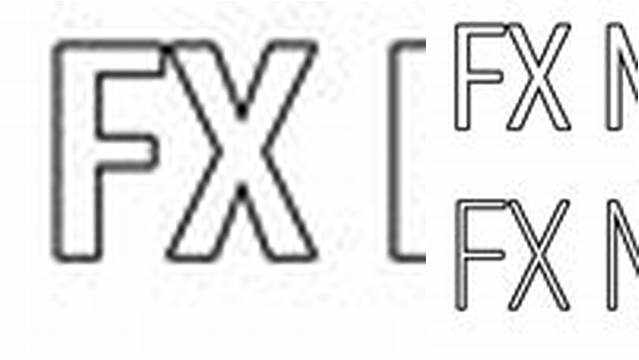
FX Neofara Font: Free Download & Usage Guide
Are you a designer or content creator constantly on the lookout for fresh, eye-catching fonts? Well, fonts play a crucial role in the overall aesthetic and readability of any project, whether it's a website, a poster, or even a social media graphic. Today, we're diving deep into the world of fonts, specifically focusing on the FX Neofara Semi Bold Outline font. This unique typeface can add a touch of modern elegance and distinctiveness to your work. If you've been searching for a font that stands out from the crowd, you're in the right place! This article will guide you through everything you need to know about the FX Neofara Semi Bold Outline font, including its features, potential uses, and, most importantly, where you can download it for free. So, buckle up, font enthusiasts, and let's get started!
What is FX Neofara Semi Bold Outline Font?
Let's get into the nitty-gritty of what makes the FX Neofara Semi Bold Outline font so special. First off, the "Semi Bold" weight gives it a strong presence without being overwhelmingly heavy, striking a perfect balance for headlines, subheadings, and even shorter paragraphs. The "Outline" style is where this font truly shines, offering a contemporary and slightly futuristic feel. This outline effect creates a visually interesting look, making your text pop and drawing the reader's eye. Imagine using this font for a tech-related website, a gaming poster, or even an invitation to a modern art exhibition – the possibilities are endless! The design is clean and geometric, lending a sense of sophistication and clarity to any project. It's not just about looking good; it's about communicating your message effectively, and the FX Neofara Semi Bold Outline font helps you do just that. The versatility of this font makes it a valuable asset in any designer's toolkit. Whether you're working on a sleek, minimalist design or something more bold and edgy, this font can adapt to your needs. It's the kind of font that can elevate your work from looking good to looking truly professional. And the best part? You can get your hands on it without spending a dime! In the following sections, we'll explore more about its uses and where to find that free download. We'll also touch upon some important considerations when using free fonts, ensuring you're using them responsibly and legally.
Key Features and Design Elements
The FX Neofara Semi Bold Outline font boasts a range of features that make it a standout choice for designers. Its semi-bold weight provides a perfect balance between prominence and readability, ensuring your text commands attention without overwhelming the viewer. The outline style is a defining characteristic, adding a modern and slightly edgy touch. This design element creates a visual intrigue, making the font suitable for projects that aim to convey innovation and sophistication. The clean, geometric shapes that form each character contribute to the font's overall clarity and legibility. This is crucial, especially when using outline fonts, as intricate designs can sometimes sacrifice readability. FX Neofara manages to maintain both style and functionality seamlessly. The font family may also include variations beyond the semi-bold outline, such as regular, bold, or italic styles. While we're focusing on the semi-bold outline here, having access to a full font family can be incredibly beneficial for creating consistent and cohesive designs across different platforms and media. Imagine using the semi-bold outline for headings and the regular weight for body text – a seamless way to establish visual hierarchy. Furthermore, the character set of FX Neofara likely includes uppercase and lowercase letters, numbers, punctuation marks, and potentially even some special symbols. A comprehensive character set is essential for versatility, allowing you to use the font in a wide range of applications, from web design to print materials. The x-height, ascenders, and descenders of the font are also carefully considered, contributing to its overall balance and aesthetic appeal. These subtle details are what differentiate a well-designed font from a mediocre one. When you download and use FX Neofara Semi Bold Outline, you're not just getting a visually appealing typeface; you're getting a thoughtfully crafted tool that can enhance your creative projects.
Ideal Uses for FX Neofara Semi Bold Outline Font
So, where can you actually use this awesome font? Guys, the FX Neofara Semi Bold Outline font is incredibly versatile, making it a fantastic choice for a wide range of projects! Think about using it for eye-catching headlines and titles that really grab attention. The outline style makes your text pop, perfect for posters, website headers, or even social media graphics. If you're working on a project with a modern or futuristic vibe, this font is a no-brainer. Its clean lines and geometric shapes lend themselves perfectly to tech-related designs, gaming materials, or anything that needs a touch of cutting-edge style. But don't think it's only for tech stuff! The FX Neofara Semi Bold Outline font can also add a sophisticated touch to invitations, brochures, and even branding materials. Imagine using it for a sleek logo design or a stylish business card. The semi-bold weight ensures your text is legible and impactful, without being overly heavy or distracting. And because it's an outline font, it can work beautifully against various backgrounds, whether you're using a solid color or a busy image. When it comes to specific industries, think about using it for graphic design, web design, advertising, and even video game design. Anywhere you need a font that's both stylish and readable, FX Neofara can be a great solution. Don't be afraid to experiment and see how it works in different contexts! Try pairing it with a simpler sans-serif font for body text to create a balanced and visually appealing layout. The possibilities are endless, so let your creativity run wild!
Conclusion: Embrace the FX Neofara Semi Bold Outline Font
So, there you have it, guys! The FX Neofara Semi Bold Outline font is a fantastic addition to any designer's arsenal. Its unique blend of modern style and readability makes it a versatile choice for a wide range of projects. From eye-catching headlines to sleek branding materials, this font has the potential to elevate your designs and capture your audience's attention. Remember, the semi-bold weight provides a strong presence, while the outline style adds a touch of contemporary flair. Whether you're working on a tech-focused website, a gaming poster, or a stylish invitation, FX Neofara can help you achieve a polished and professional look. The key features, including its clean geometric shapes and comprehensive character set, ensure that it's not just visually appealing but also highly functional. When you're searching for a free download, be sure to explore reputable font websites and pay close attention to the licensing terms. Using free fonts responsibly is crucial for respecting the rights of the designers and avoiding any legal issues. Always read the license agreement carefully and credit the designer whenever possible. By keeping these considerations in mind, you can enjoy the benefits of free fonts while contributing to a positive design community. So, go ahead and embrace the FX Neofara Semi Bold Outline font in your next project. Experiment with its different applications, pair it with other fonts, and let your creativity shine. With its unique style and versatility, this font is sure to become a valuable asset in your design toolkit. Happy font hunting and happy designing!